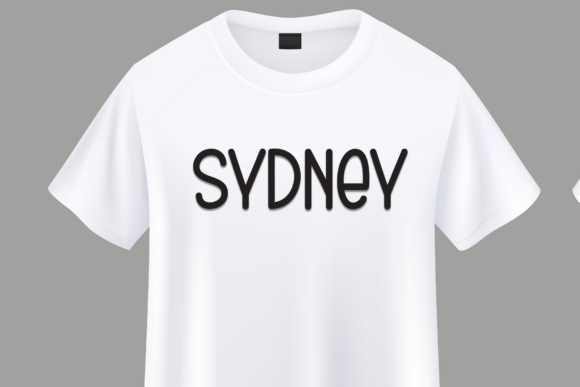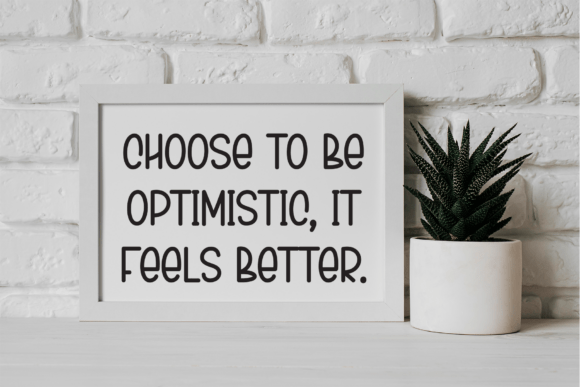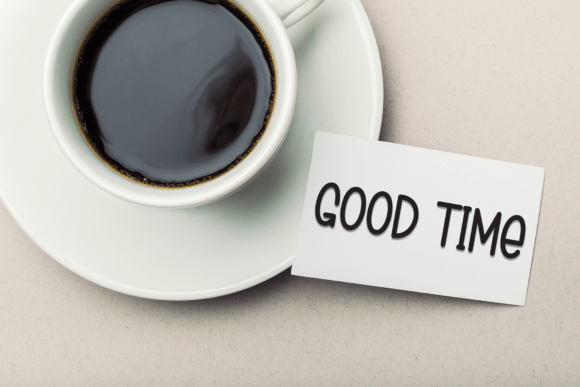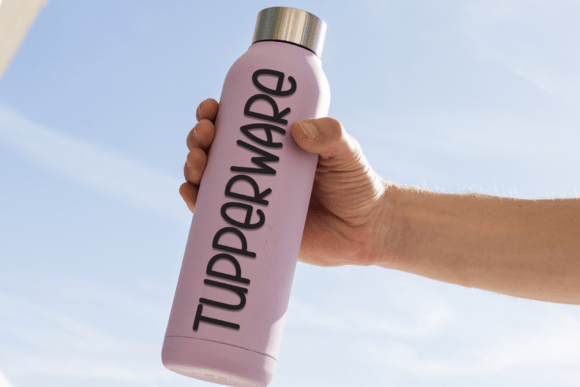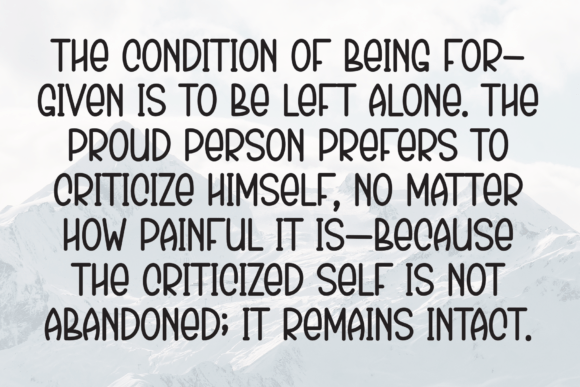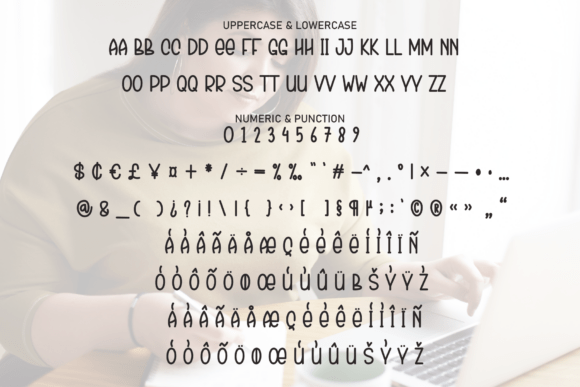
The Perfect Font for Your Next Design Project
Who hasn’t been stuck staring at a blank canvas, trying to find the perfect font to bring their design to life? The struggle is real, but it’s moments like these that remind us why we love being designers in the first place – the thrill of the hunt for the perfect font, the satisfaction of seeing our vision come together.
Enter the Chubby Designer Font, a stylish and approachable display font that’s about to become your new go-to. With its clean lines, balanced letterforms, and subtle rounded edges, this font is perfect for adding a warm and inviting touch to your branding, headlines, packaging, and digital content. Whether you’re a seasoned pro or just starting out, the Chubby Designer Font is a valuable addition to any designer’s toolkit.
Key Features of Chubby Designer Font
- Unique Characteristics: This font features a distinctive, rounded design with varying line widths, creating a friendly and approachable atmosphere in digital and print media.
Chubby Designer Font Review
Overall, I’d say the “Chubby Designer Font” is a mixed bag. On one hand, it’s great for creating a fun and playful vibe in your designs ✨. The font’s rounded edges and chunky lines can add a lighthearted touch to your projects, making it perfect for creative industries like advertising, fashion, or entertainment.
- Unique and playful style ✨
- Easily readable at various font sizes
- Works well in digital and print applications
However, there are some limitations to consider ⚠️. For one, the font can be a bit too playful for serious or professional projects. It may come across as immature or unpolished if not used carefully. Additionally, the font’s rounded edges can make it difficult to read in certain contexts, such as in small text or at very large sizes.
- May be too playful for professional projects ⚠️
- Can be difficult to read in certain contexts
- Limited character set and language support
Overall, I’d recommend the “Chubby Designer Font” for projects where a playful and creative vibe is a must. Just be sure to use it thoughtfully and in contexts where it will shine ✨.
Getting the Most Out of Chubby Designer Font
For the best results, use Chubby Designer Font for headings and titles, as it is designed to be bold and eye-catching.
Pair it with a clean and simple font for body text to create a visually appealing contrast.
Chubby Designer Font is perfect for:
Designing invitations, posters, and flyers.
Creating social media graphics and ads.
Developing branding materials, such
Alternatives to Chubby Designer Font
Coolvetica
Coolvetica is a sans-serif font that is inspired by 1980s advertising and graphic design. It’s a great choice for designers who want a fun and playful font that’s still professional. Use it for projects that require a nostalgic or retro feel.
Comparison to Chubby Designer Font: While Chubby Designer Font is a slab-serif font with a more traditional feel, Coolvetica is a modern sans-serif font with a more contemporary look.
Playfair Display is an elegant and luxurious script font that’s perfect for designers who want to add a touch of sophistication to their projects. It’s a great choice for titles, headings, and other display text.
Q: What is the recommended font size range for Chubby Designer Font?
The recommended font size range for Chubby Designer Font is between 10pt and 48pt. However, this range may vary depending on the specific design project and the desired visual impact. It’s always a good idea to test different font sizes to find the optimal setting for your design.